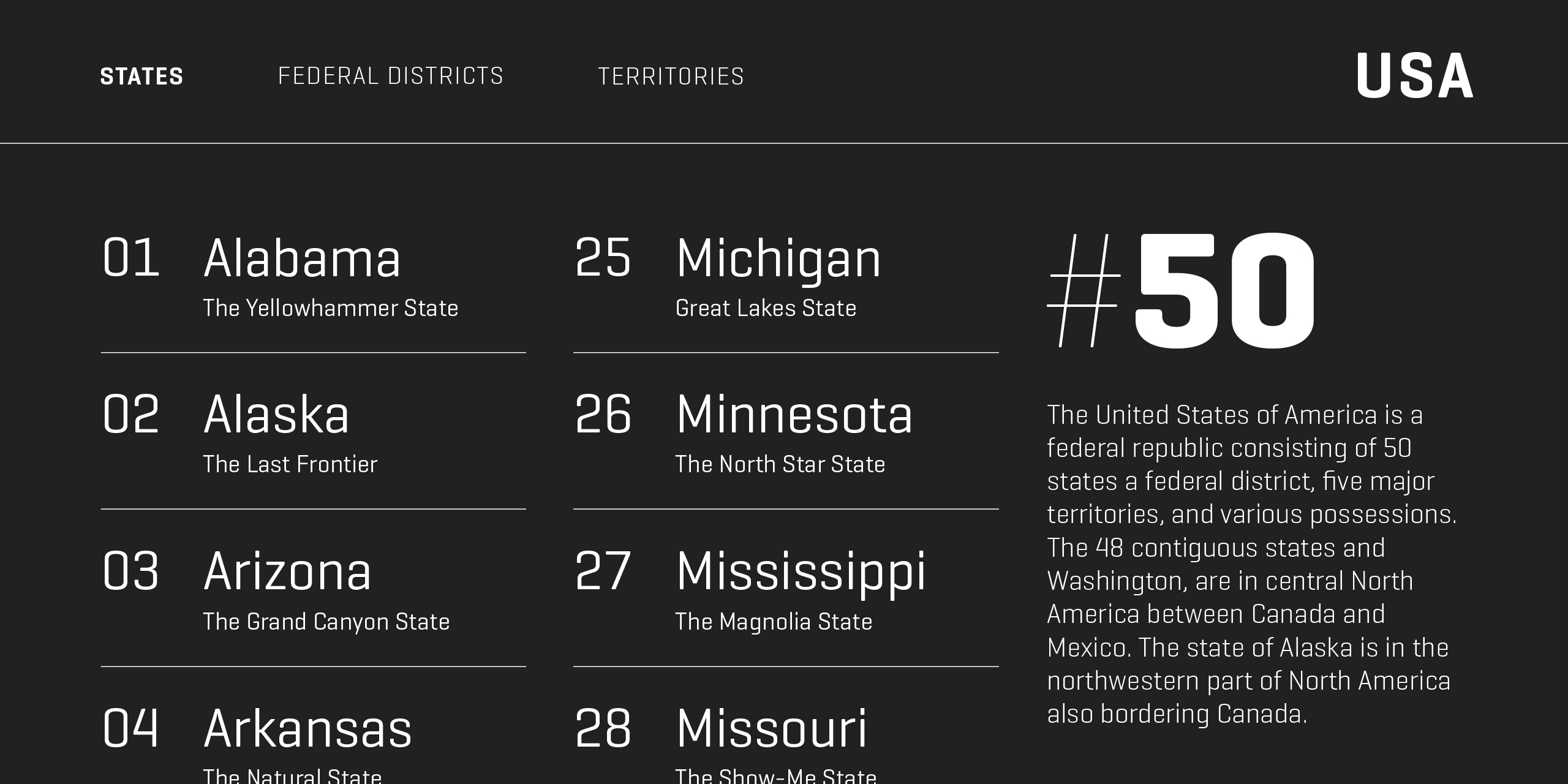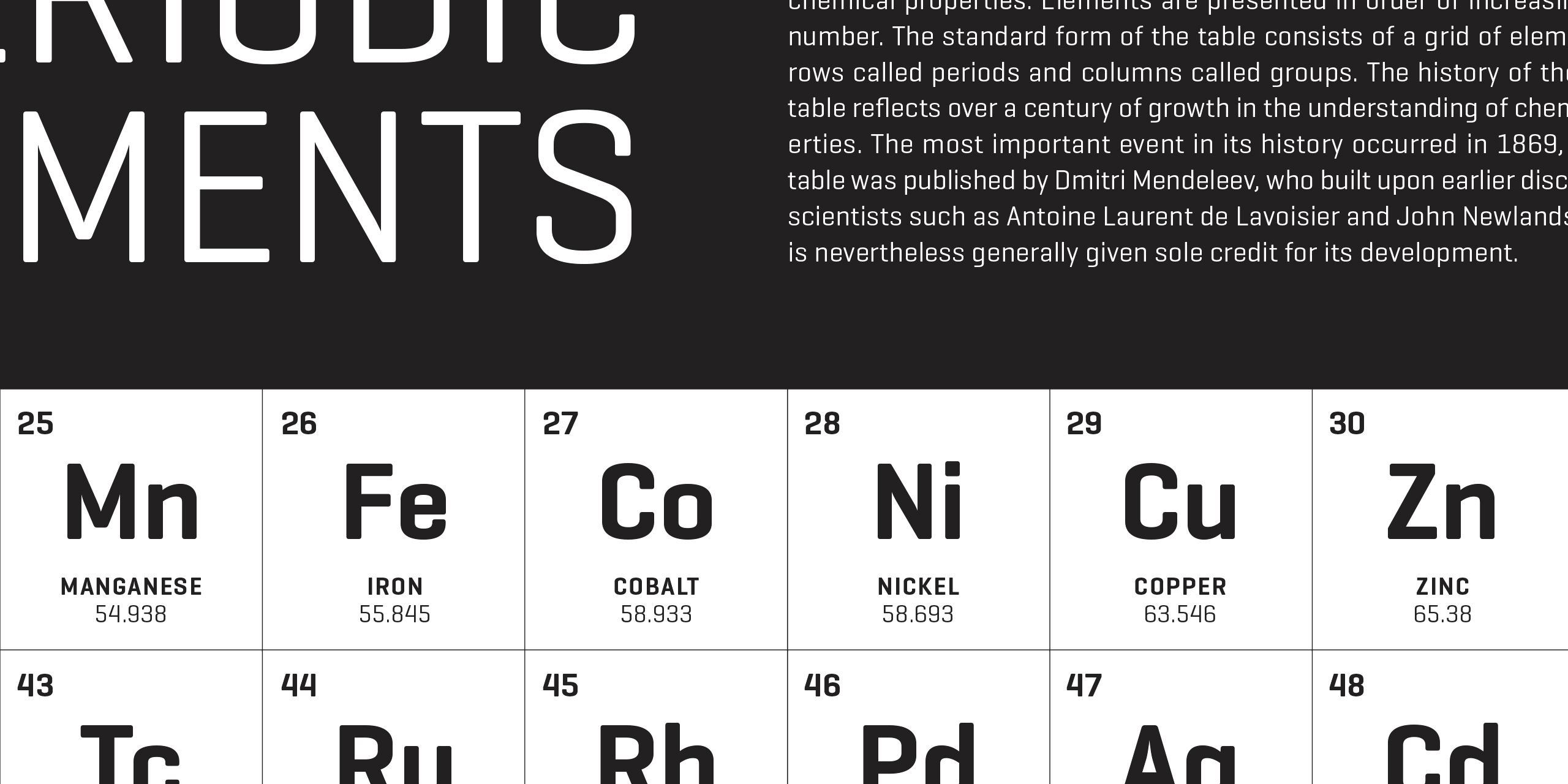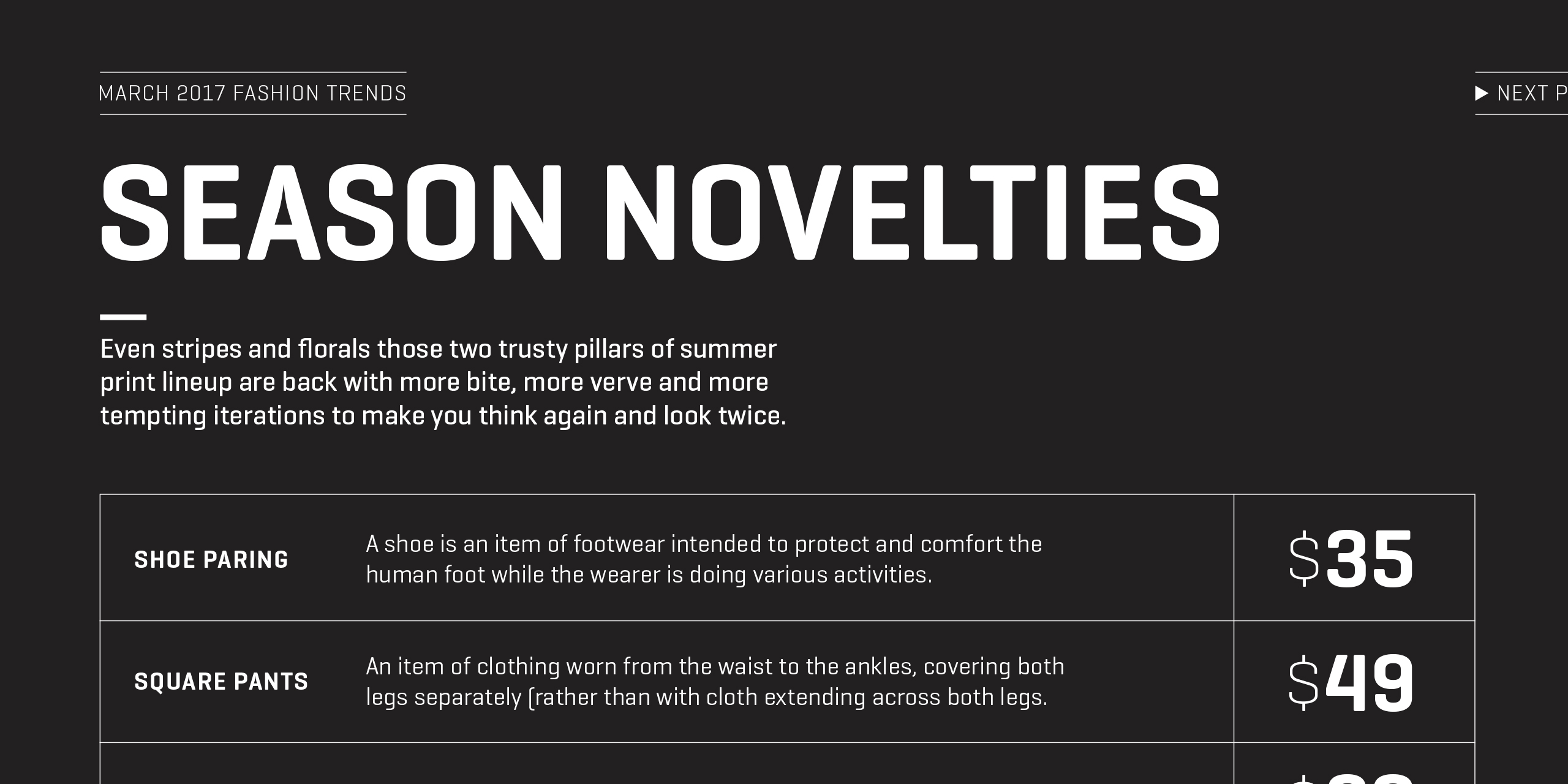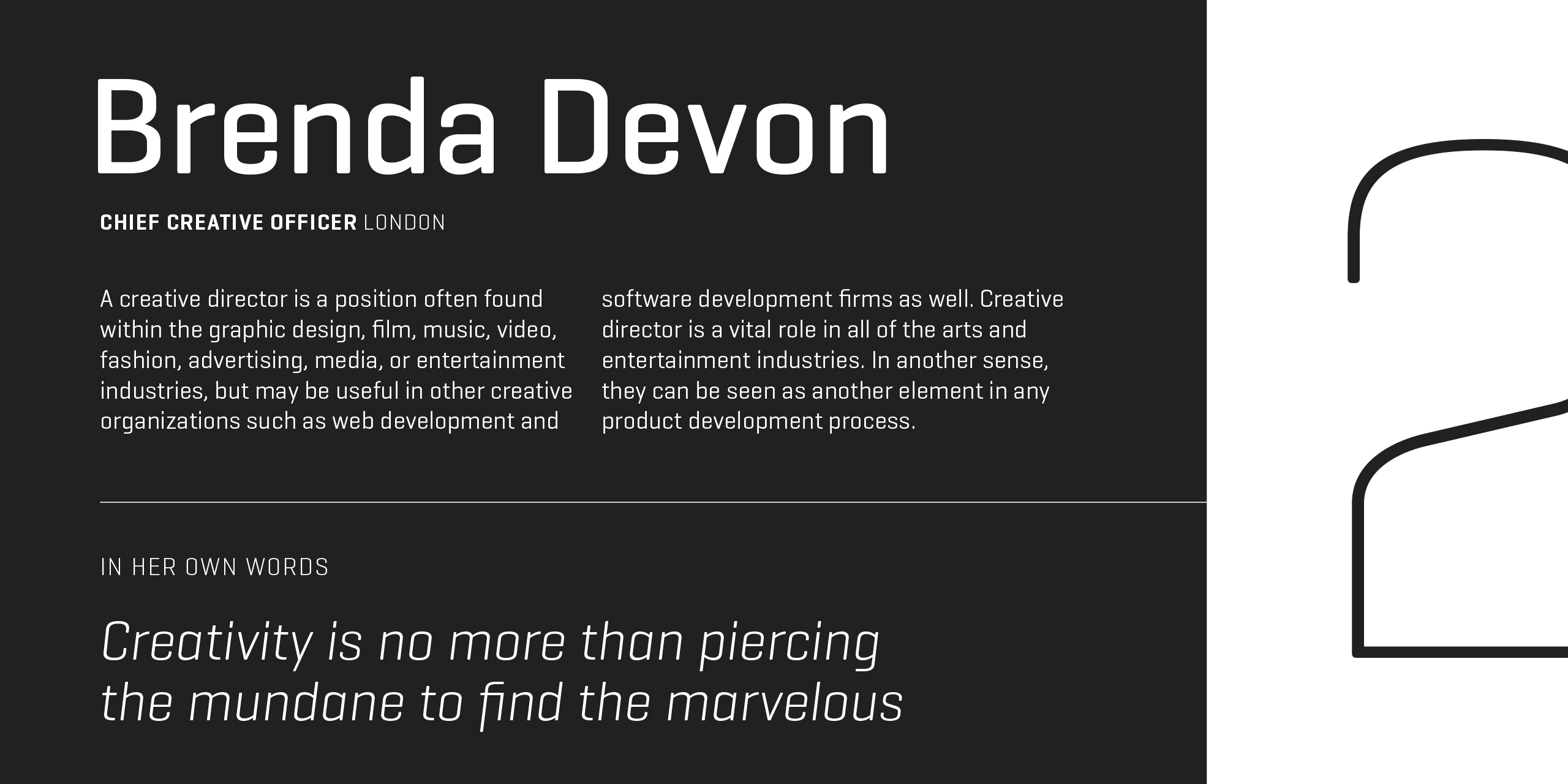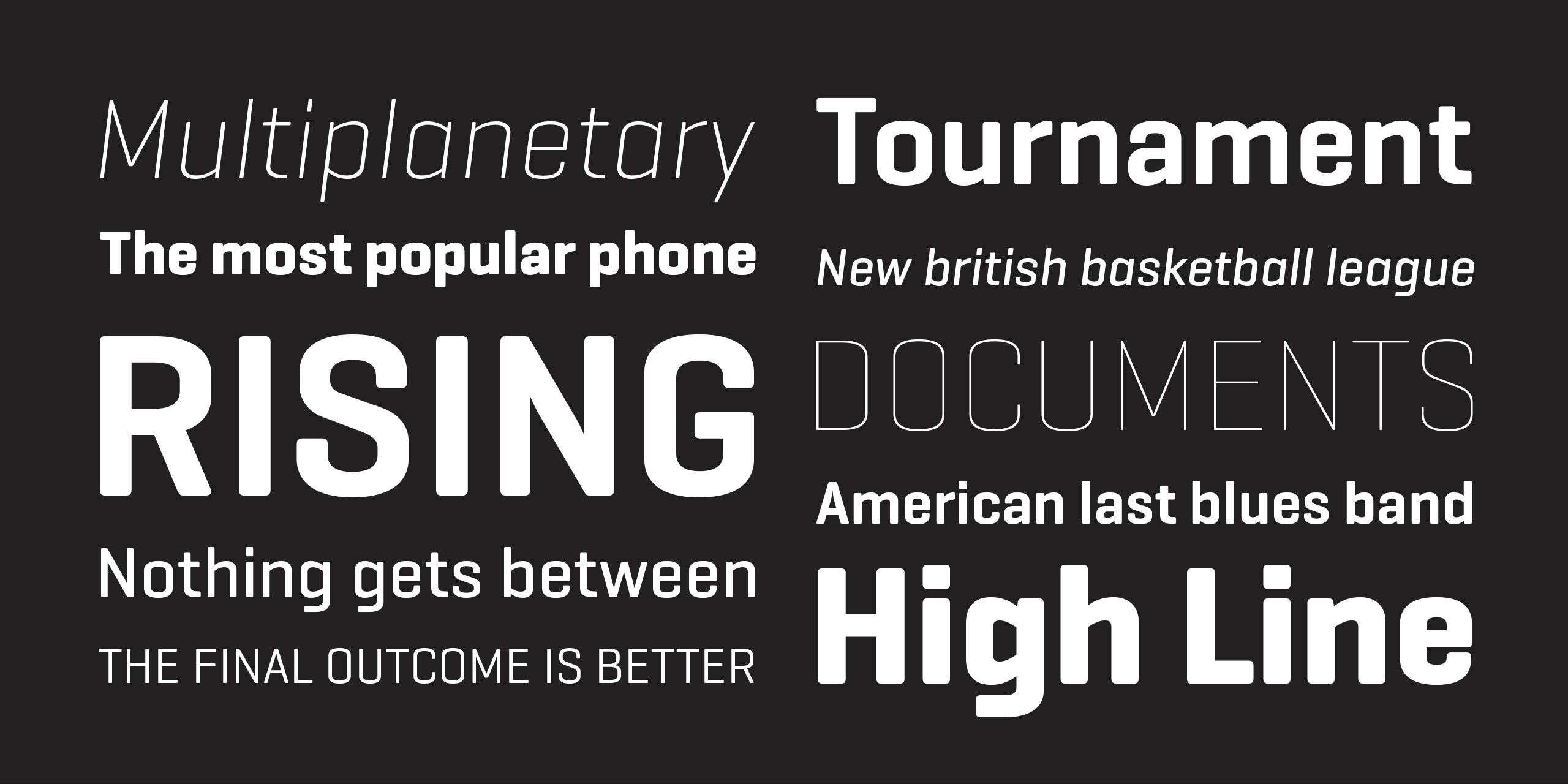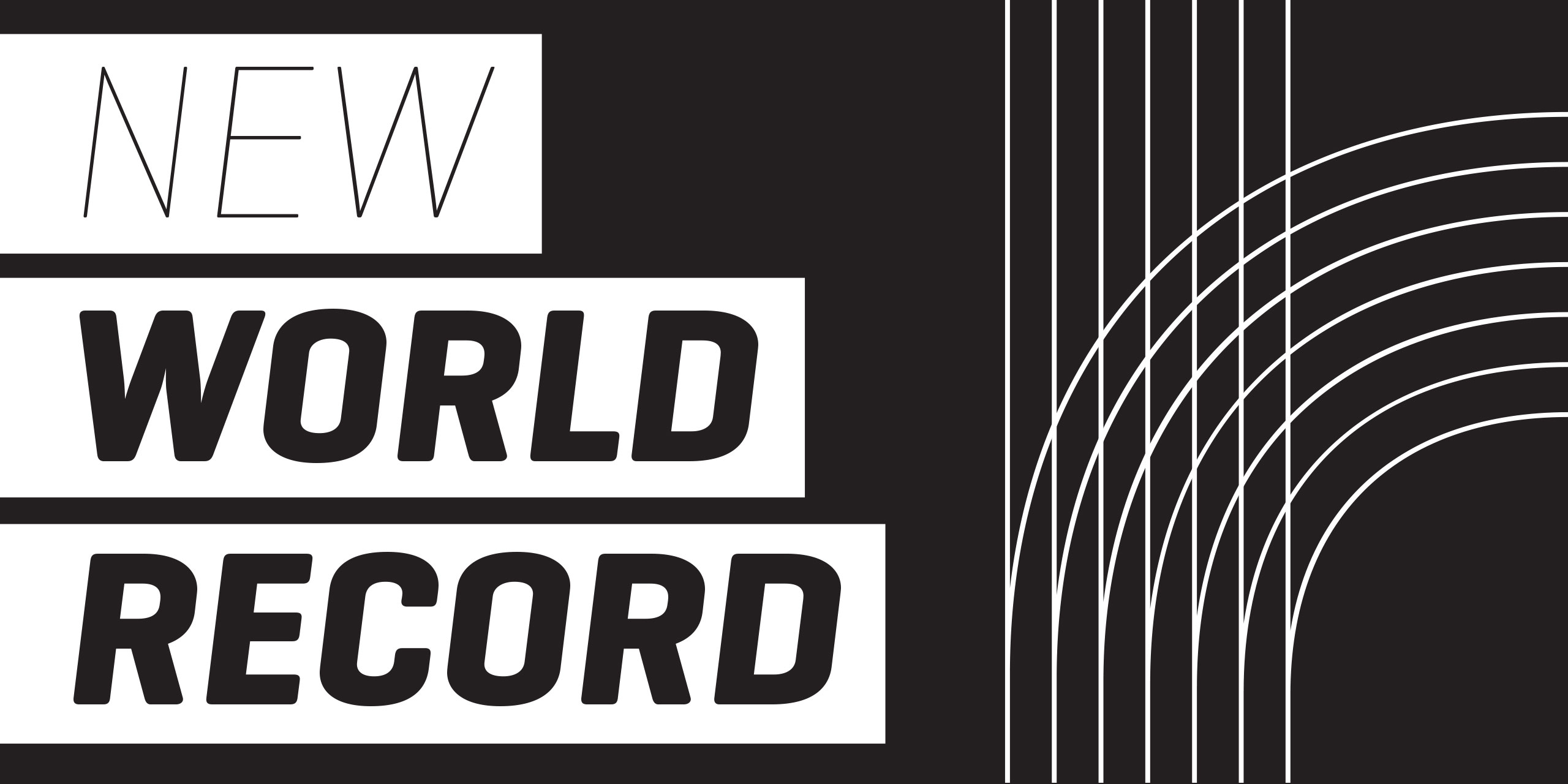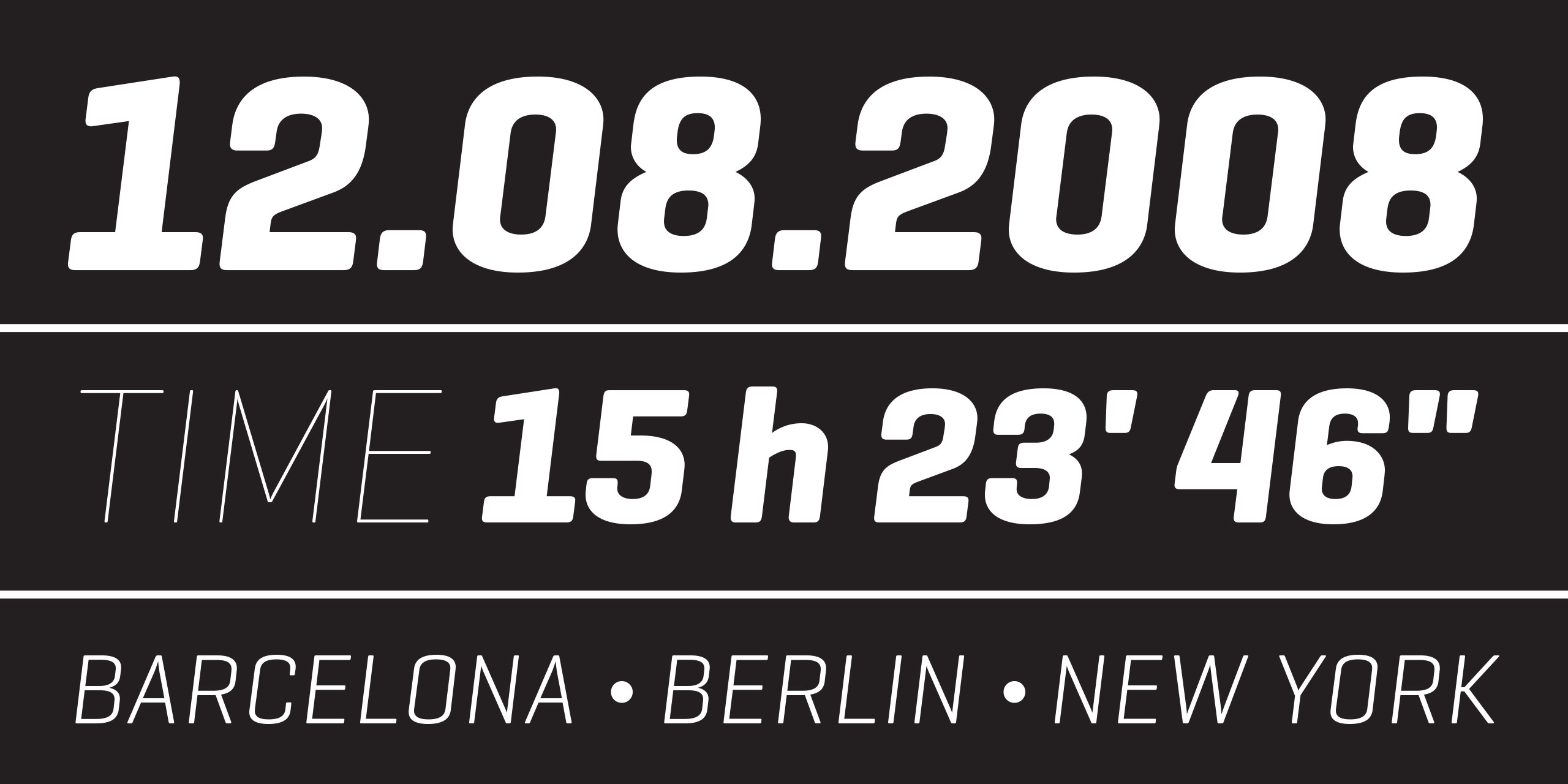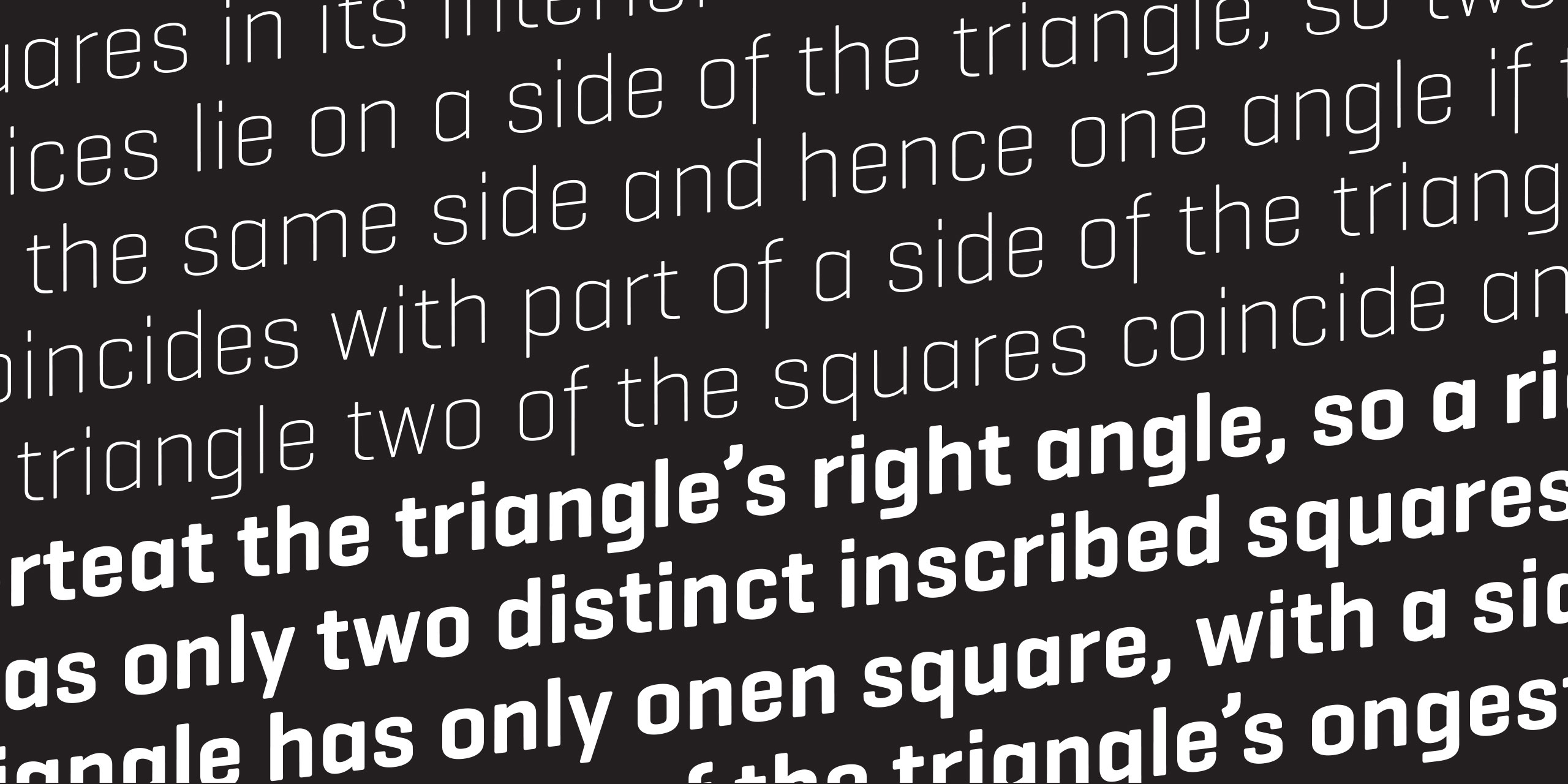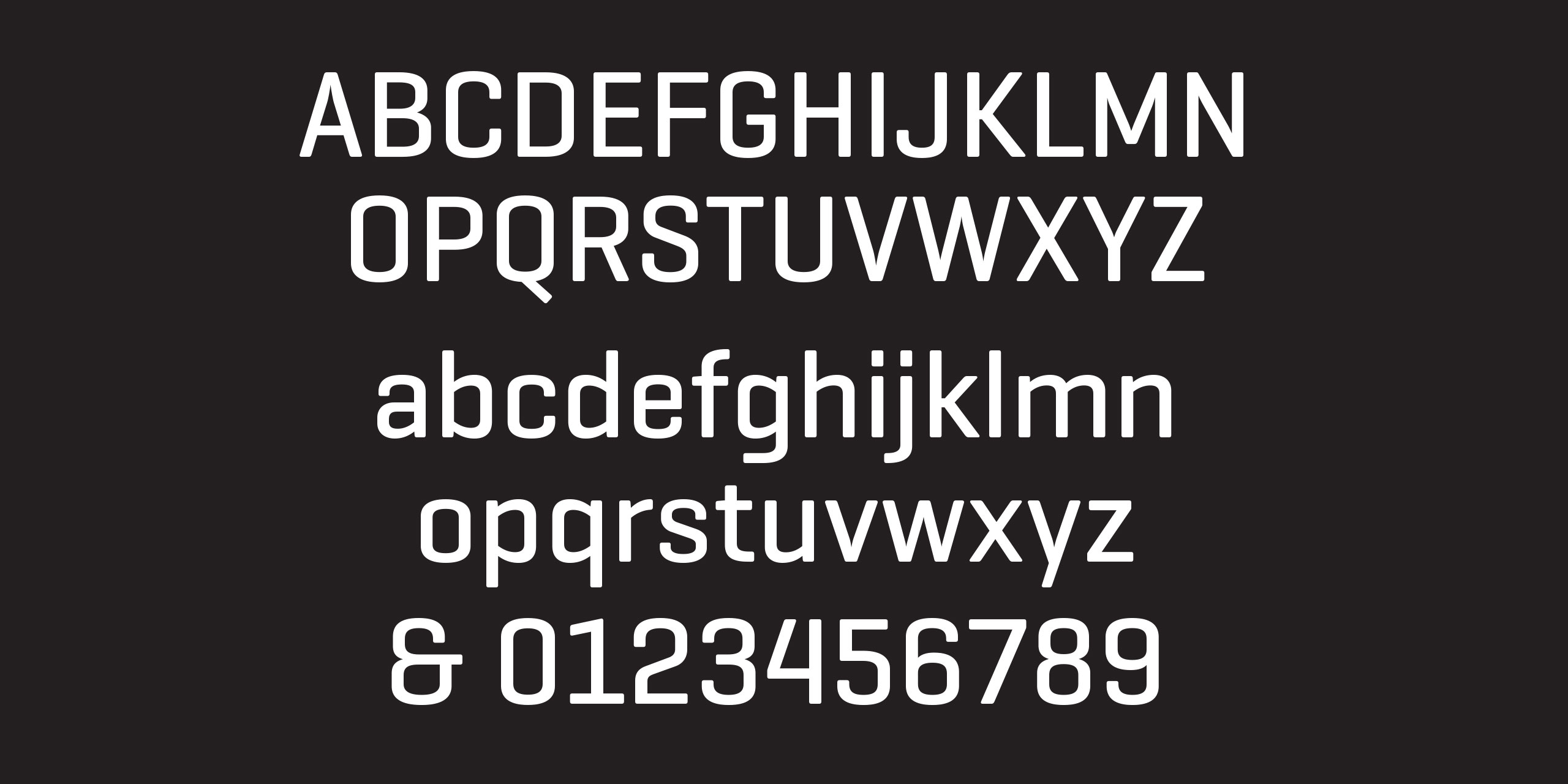
Geogrotesque is a semi modular with a subtle rounded finish
typeface. All the characters are based in the same formal principle with
its corresponding optical adjustments in order to adapt the system to an
alphabet for texts.
Although the type family has a geometric or "technological" construction,
the rounded finish provides it a warm appearance, making the typefaces nicer
and nearby. Geogrotesque has been conceived to be used as a display typeface
in publications or intermediate length texts, most of all the Thin and Ultralight
weights which were meant to be used in big sizes.
The type family consists of 14 styles, 7 weights (Thin, UltraLight, Light, Regular, Medium, SemiBold and Bold) plus italics and it’s available in Open Type format.